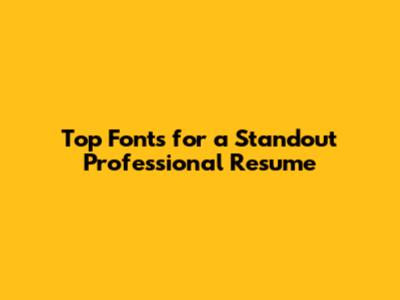
Top Fonts For A Standout Professional Resume
Hey guys! Ever wonder what makes a resume truly pop? Sure, the content is king, but the font you choose can be the silent champion, or the sneaky saboteur. Choosing the best font for a professional resume might seem like a small detail, but it's a crucial part of the first impression you make on potential employers. A well-chosen font screams “professional” and “polished,” making your resume not just readable, but also visually appealing and memorable. This guide dives deep into the best fonts for a professional resume, helping you navigate the sometimes-tricky world of typography and ensuring your resume stands out from the crowd. We'll explore fonts that are both easy on the eyes and convey the right message to hiring managers. Let's get started!
Why Font Choice Matters in Your Resume
Alright, let’s talk about why the font you pick for your resume is such a big deal. The best font for a professional resume can significantly impact how your resume is perceived. First impressions are everything, and your resume is often the first glimpse a hiring manager gets of you. A poorly chosen font can make your resume look cluttered, unprofessional, or even difficult to read. On the flip side, a thoughtfully selected font can make your resume look clean, modern, and easy to digest. It shows attention to detail and a commitment to presenting yourself in the best possible light. Plus, different fonts evoke different feelings and associations. Some fonts feel classic and reliable, while others are more modern and edgy. The right font choice helps you align your resume with the tone and style of the job you're applying for, ensuring that you make a positive and memorable impression. This is also a huge deal if you need to optimize for an applicant tracking system (ATS); more on that later. Essentially, the font you choose is an extension of your personal brand. It reflects your personality, your attention to detail, and your understanding of professional standards. So, while it might seem like a small thing, the impact of your font choice is huge. Getting it right can be the difference between landing an interview and getting lost in the shuffle.
The Impact of Font on Readability and Perception
Think about it: what’s the point of having amazing experience and skills if no one can actually read your resume? The best fonts for a professional resume are those that prioritize readability. Some fonts are simply easier to scan and comprehend at a glance. They have clear letterforms, consistent spacing, and don't have too many distracting flourishes or design elements. These qualities are especially important when a hiring manager is skimming through dozens, or even hundreds, of resumes. A readable font ensures that your key information gets across quickly and efficiently. Then there’s perception. Different fonts convey different messages, whether you intend them to or not. For example, a serif font, like Times New Roman, might give off a more traditional and conservative vibe. A sans-serif font, like Arial or Calibri, can appear more modern and clean. The font you choose, therefore, can subtly influence how your resume is perceived. It can make you look organized, creative, or even tech-savvy. The goal is to select a font that reflects the tone of the job you're applying for and complements your personal brand. Remember, the right font helps you make a strong and positive impression, setting the stage for a successful job application.
Top Font Choices for Your Professional Resume
Let's get down to the good stuff, shall we? Here's the lowdown on the best fonts for a professional resume. These fonts are chosen for their readability, professional appearance, and versatility. They're designed to make your resume look great and give you the best chance of landing that interview.
Serif Fonts
Times New Roman
Okay, guys, let’s get the classic out of the way first. Times New Roman is like the old reliable friend of the font world. It's a serif font, meaning it has those little decorative strokes at the ends of the letters, known as serifs. Because it's been around for ages, it has a history of being a standard choice for documents. It's great for readability, especially in longer blocks of text, making it a solid choice for any resume. Times New Roman is a safe bet, and it's unlikely to offend anyone. However, some argue that it can be a bit boring, and using it might not make you stand out. This is a solid pick if you're in a more traditional field, where a classic look is valued. When you're choosing your font, you should consider what the field you are applying to prioritizes. If you're working in a more creative or modern industry, you might want to look at some more contemporary fonts.
Georgia
Georgia is another solid serif option, known for its excellent readability and its friendly vibe. Unlike Times New Roman, Georgia is designed to be very readable on screens, which is great for resumes that are often viewed digitally. Its slightly bolder appearance can make your resume look more prominent and easier to scan. The font features clear letterforms and a good balance between formality and approachability, making it a great option for a wide variety of industries. Its clean and straightforward style can make your resume look organized and professional. If you want a serif font that's both modern and classic, Georgia is a great pick. It's a bit more contemporary than Times New Roman, but still maintains a professional and trustworthy feel. Making this choice also helps improve your resume in the eyes of an ATS.
Sans-Serif Fonts
Arial
Alright, let’s jump into sans-serif fonts now. Arial, a clean, sans-serif font, is another widely recognized and universally accepted font. It's easy to read and simple, which makes it perfect for resumes. Arial has a straightforward, no-nonsense look that conveys a sense of professionalism and clarity. The lack of serifs gives it a modern feel. It’s also very easy to read on screens, which is a major plus. Arial is a safe and reliable choice, suitable for various professions. Arial is great because it won't distract from the content of your resume. Instead, it allows your skills and experience to speak for themselves. This font is a favorite in the corporate world for a reason. Its simplicity makes your resume look clean and uncluttered, which helps draw the hiring manager's attention to the important information.
Calibri
Calibri has become another really popular font choice in the professional world, and for a good reason. It's a clean, modern sans-serif font that’s designed to be highly readable. Calibri has slightly rounded letterforms, giving it a friendly yet professional appearance. It's considered very readable both on paper and on screen, making it a versatile option for any resume format. The font's appearance is modern and elegant without being overly flashy. This versatility makes it ideal for a wide range of industries, from finance to tech to creative fields. Its balanced design makes it a solid option for anyone aiming for a clean and professional look. If you're aiming for a resume that looks both professional and contemporary, Calibri is a great choice. It strikes a good balance between readability and style, making your resume visually appealing while remaining easy to scan and understand. It is also an ATS friendly option.
Helvetica
Ah, Helvetica! The font of fonts. It's a widely recognized sans-serif font known for its clean, neutral appearance. Helvetica is renowned for its excellent readability and versatility, making it suitable for a wide range of applications, including professional resumes. It's a popular choice for its timeless appeal and its ability to convey a sense of clarity and sophistication. Helvetica's neutral style ensures that your content takes center stage, without distracting the reader with overly ornate or stylized letterforms. It is also great for ATS systems because of its clean design. It can be a great option for almost any type of industry. If you want a font that's universally respected and widely recognized, Helvetica is a great pick. However, use it carefully because it's so common that it may not make your resume stand out in a crowd.
Other Great Options
Open Sans
Open Sans is a humanist sans-serif font designed for versatility. It's highly readable and works well in various sizes. Open Sans is perfect for digital display, which makes it great for online resumes. Its open and friendly feel makes it appealing while maintaining a professional appearance. It's a great option if you want a modern and approachable look. Open Sans is easy to read, making it ideal for resumes where readability is critical. Also, it’s a free and open-source font, so you can easily use it. If you want to convey a sense of approachability and modernity, Open Sans is the way to go.
Conclusion: Making the Right Font Choice for Your Resume
Alright, guys, you've got the lowdown on the best fonts for a professional resume! The right font is like the unsung hero of your job application. It can make or break your first impression with a potential employer. Remember to consider your industry, the tone of the job, and the overall look you want to achieve. A well-chosen font is one that is readable, professional, and visually appealing, reflecting both your personality and your attention to detail. Choose wisely, keep it professional, and watch your resume shine! Good luck with your job search, and remember that making the right font choice is a simple yet powerful step towards landing that dream job. Now go out there and make your resume look its best!